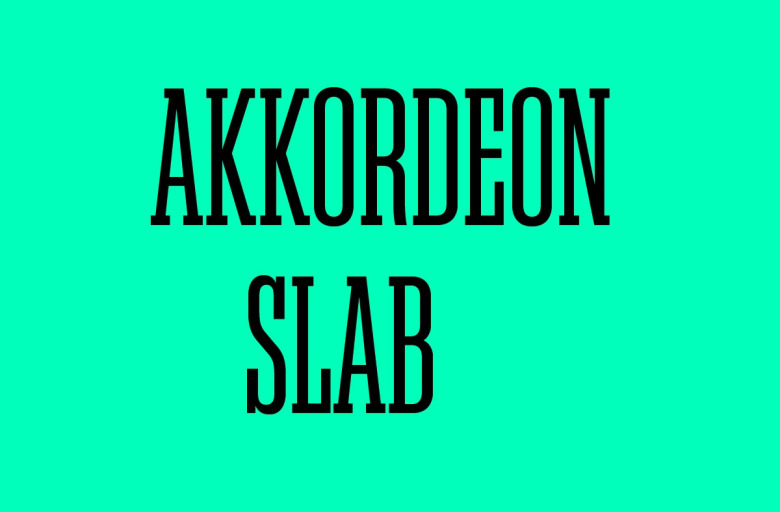
Akkordeon Slab Font Family
Akkordeon Slab Font
Let’s start the work with a font slab. This is a font family, with 14 fonts. You will have more choice for your design project. Introducing Akkordeon Slab Font Family! Akkordeon Slab designed by Emtype Foundry. Akkordeon Slab is the next step in a series of ultra display typefaces. The new Slab version shares the same skeleton and spirit as the original Akkordeon, putting the same concepts into a different shape. Akkordeon Slab provides a stronger voice that enriches the whole family, becoming especially suitable for sports, business, fashion or any situation that requires impact headlines.
Akkordeon Slab Serif Font Family